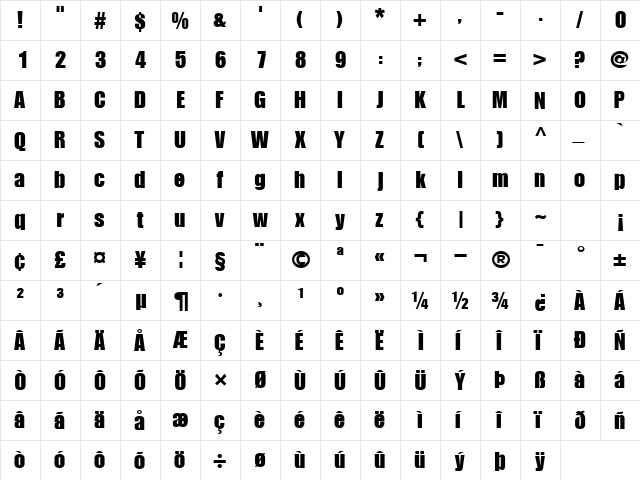
ShortHaulSSK Regular
Design Context for ShortHaulSSK Typeface
ShortHaulSSK takes a measured approach to typography — its balanced proportions and neutral character make it a reliable workhorse for both digital and print work.